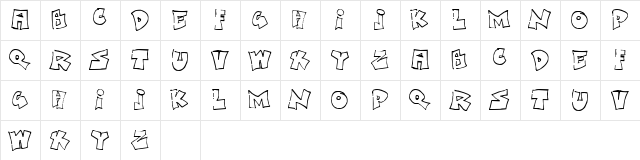
Design Context for Bored Schoolboy Typeface
Bored Schoolboy is a composed and adaptable typeface that performs quietly and consistently across a wide range of design contexts.
Pro Tip: Pair Bored Schoolboy with a font of contrasting weight or personality to build a more expressive typographic hierarchy.